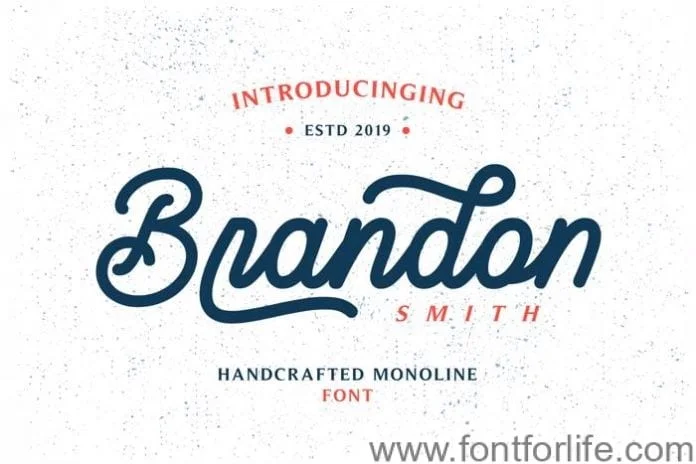
Brandon Smith Font
Brandon Smith Font is perfect for personal branding projects, professional signature designs, individual consultant logos, authentic testimonial graphics, personal blog headers, handwritten quote designs, boutique business branding, artisan craft labels, genuine personal communications, and trustworthy service provider materials.
Brandon Smith Font is exciting because it captures the essence of personal authenticity and individual character through distinctive letterforms that convey trustworthiness, personal expertise, and genuine human connection with professional appeal. This personally designed typeface combines signature-style authenticity with contemporary functionality, making it perfect for personal brands that want to communicate individual excellence, personal attention, and authentic professional relationships.
The Brandon Smith Font family includes personal signature weights with individual character styling, featuring authentic handwritten elements and professional variations. The font showcases personal design details, individually-crafted proportions, and signature character characteristics that create a comprehensive typographic system for personal and authentic professional brand applications.
Brandon Smith Font Free Download offers designers access to premium personal typography that brings authentic individual character to contemporary professional design projects. This carefully crafted typeface has been developed to capture the essence of personal branding and individual expertise while ensuring optimal performance in professional service applications. The font's personal character and authentic appeal make it ideal for consultants and service professionals emphasizing individual relationships.
The personal sophistication of Brandon Smith Font makes it an invaluable tool for independent professionals, personal coaches, and individual service providers that need typography capable of communicating personal expertise and trustworthy character. The font's authentic character helps establish immediate personal connections that resonate with clients seeking individual attention, personal service, and genuine professional relationships with trusted experts.
Personal consultants, individual practitioners, and boutique service providers consistently choose Brandon Smith Font for its ability to convey personal authenticity and professional trustworthiness through typography. The font excels in applications where establishing personal credibility and individual brand relationships are essential to business success, making it particularly effective for consulting services, personal coaching, and individual professional brands targeting relationship-focused clients.
This font's comprehensive character set includes personally-styled letterforms, signature numerals, authentic punctuation marks, and individual symbols that support genuine personal typography composition. The consistent personal styling maintains the authentic individual theme throughout all characters while ensuring professional readability across all personal and professional design projects requiring Brandon Smith Font Free Download functionality.